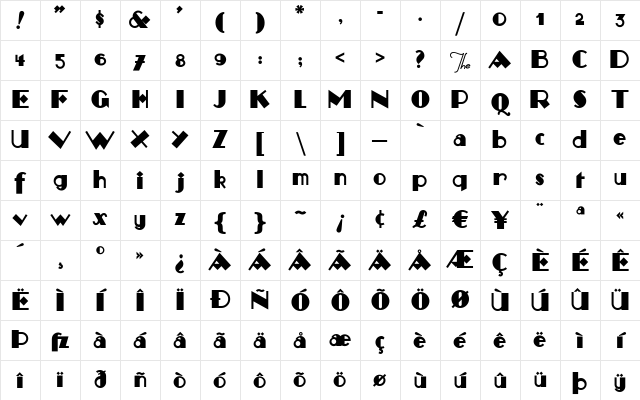
Monkey-Fingers Regular Free Font
Monkey-Fingers Regular
Design Context for Monkey-Fingers
Monkey-Fingers is a composed and adaptable typeface that performs quietly and consistently across a wide range of design contexts.